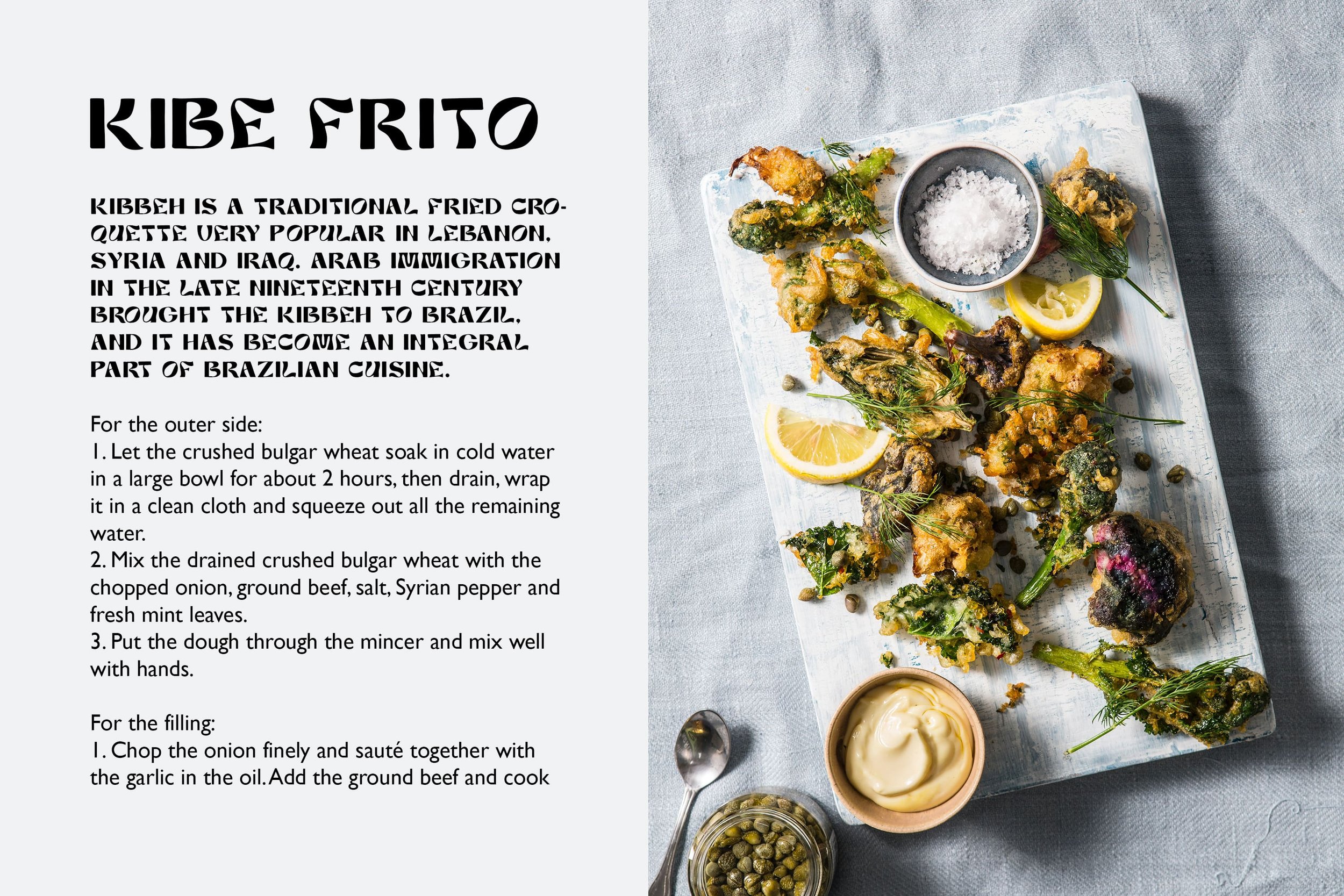
Discover the allure of LIBER All Caps font, a fusion of yesterday's charm with today's clean aesthetics. This modern retro typeface is an essential tool for designers seeking to stand out. The all caps feature ensures your message is delivered with confidence and clarity. Build a visual identity that resonates with elegance and modernity. Embrace a font that speaks volumes and brings your creative concepts to life. Get Liber today and redefine your design perspective!
- Contains: Uppercase letters, numerals, punctuation marks
- Features: Multilingual support